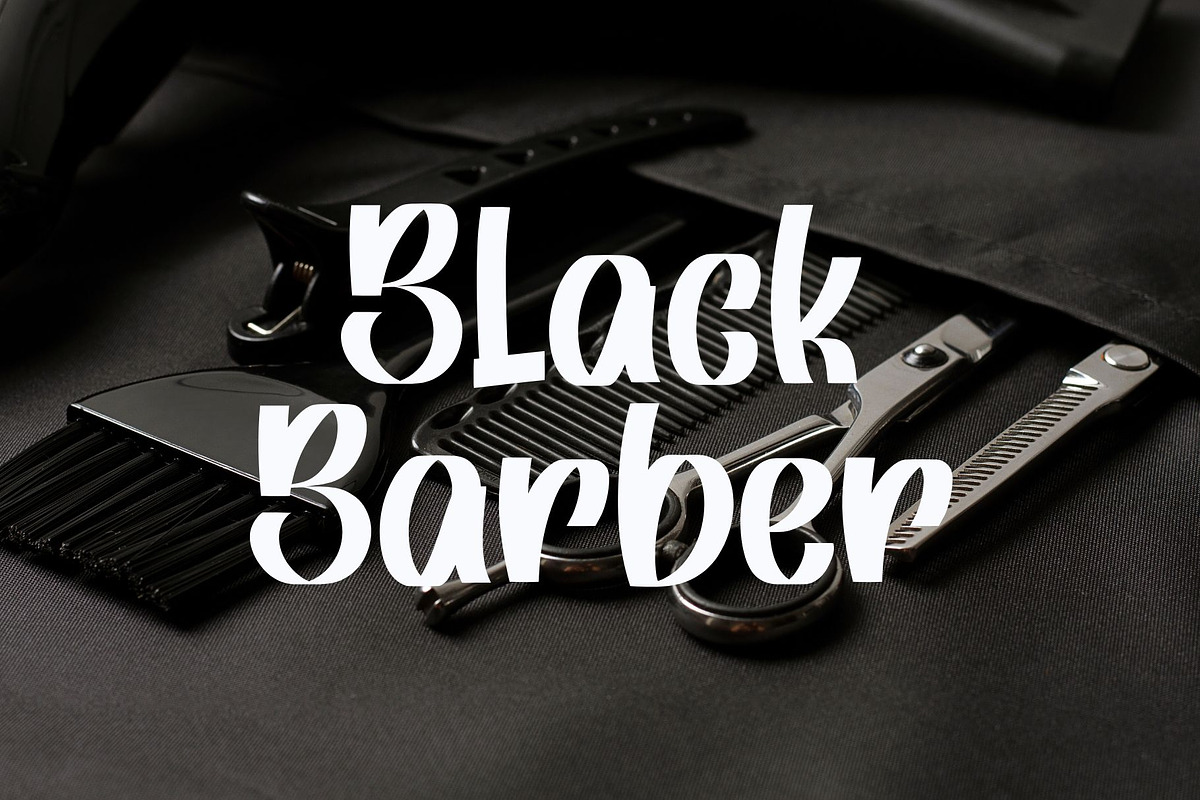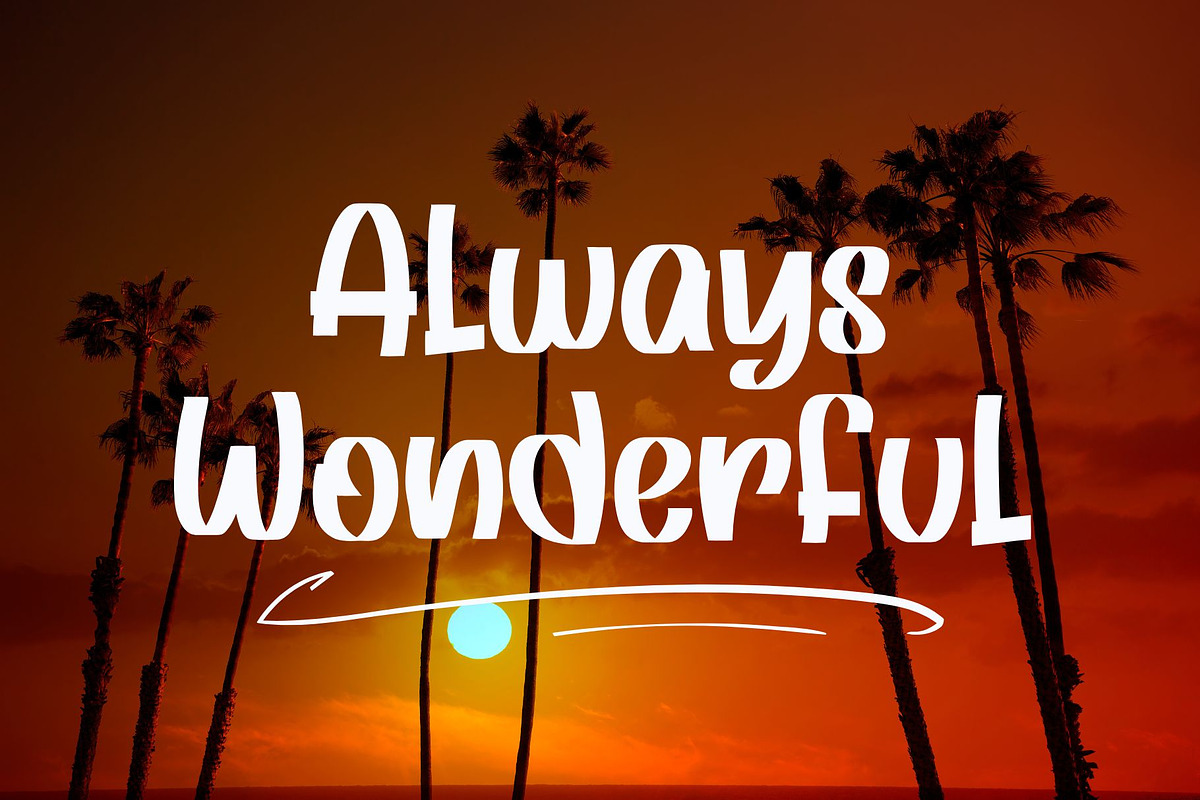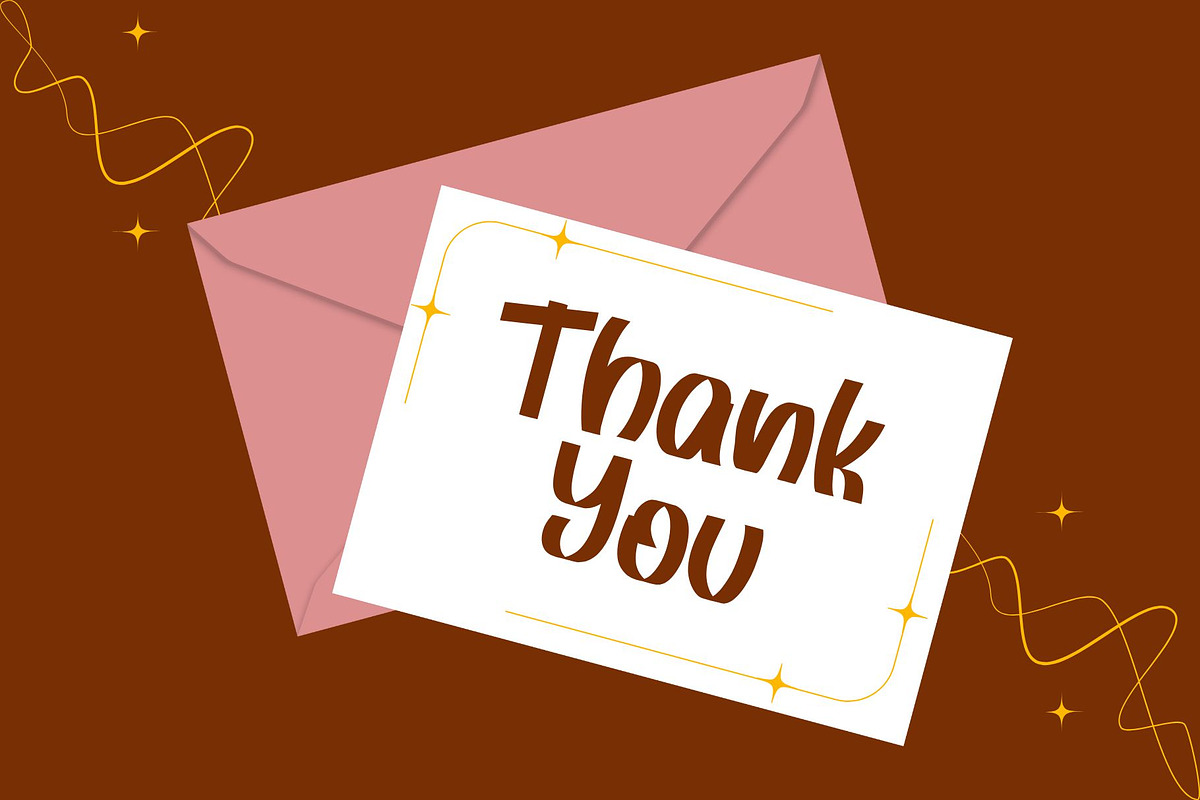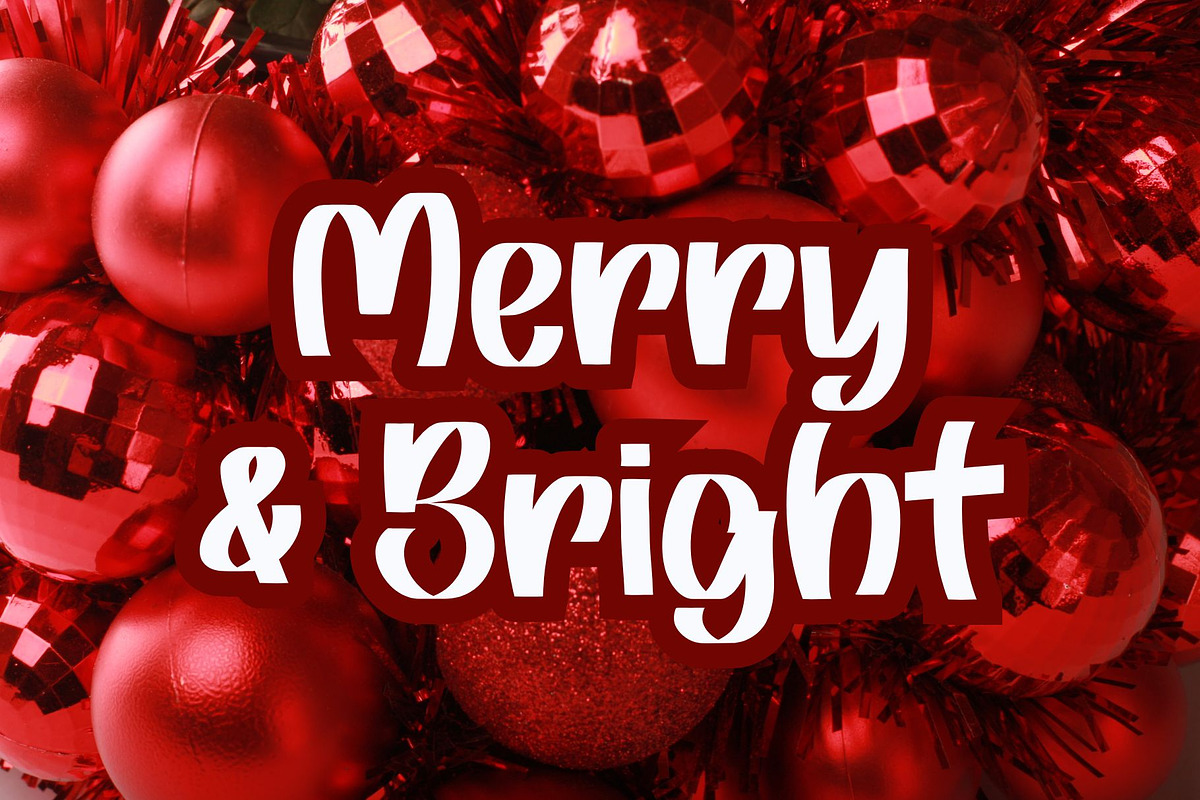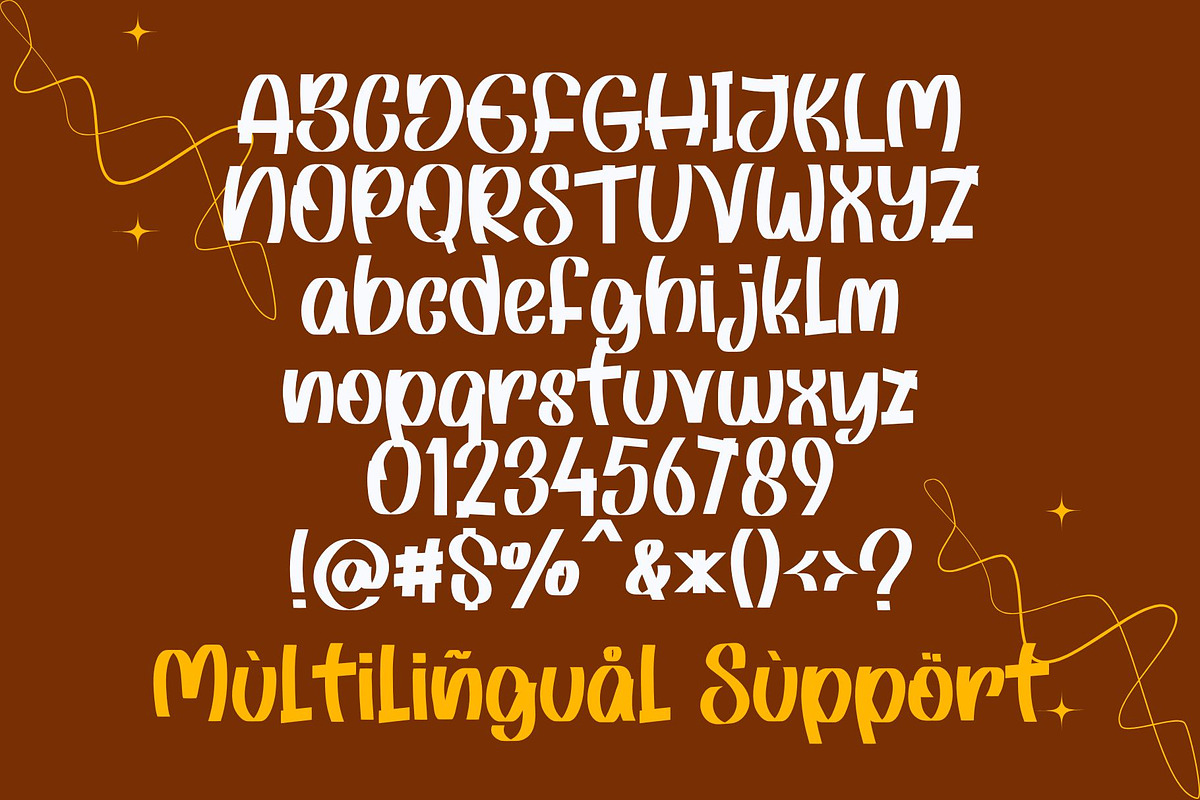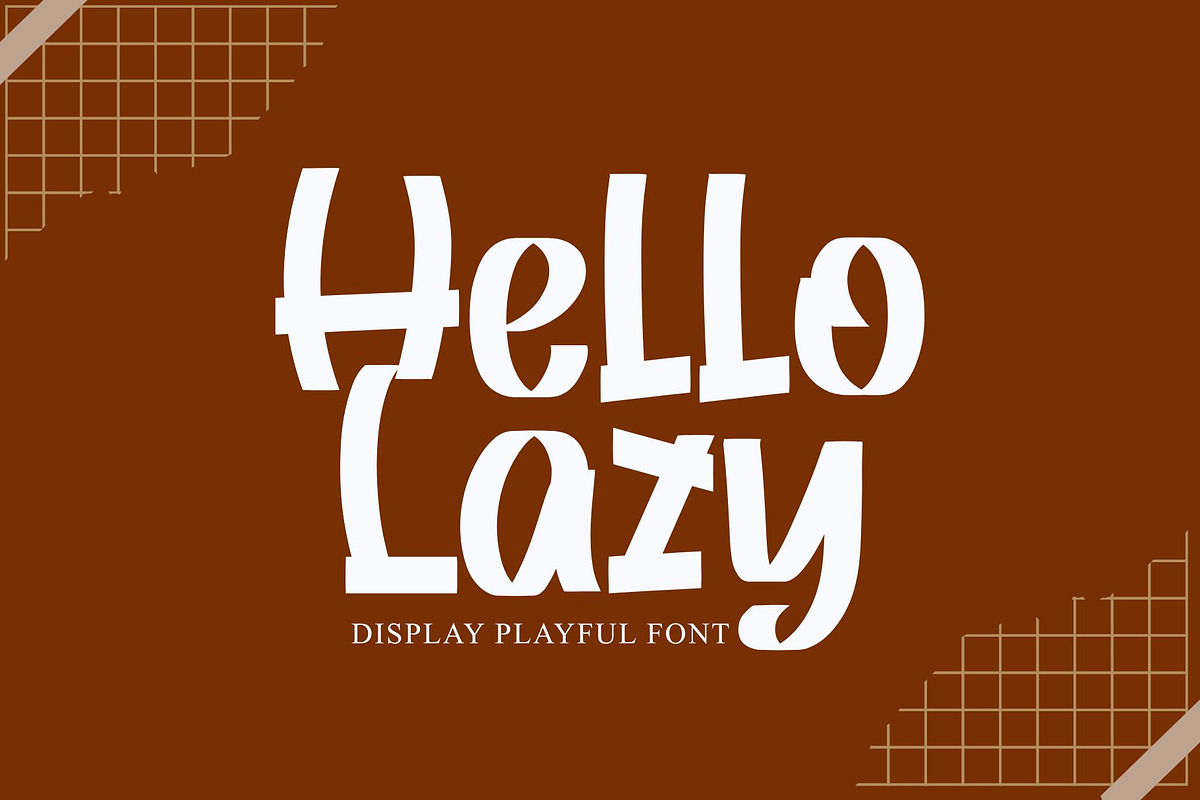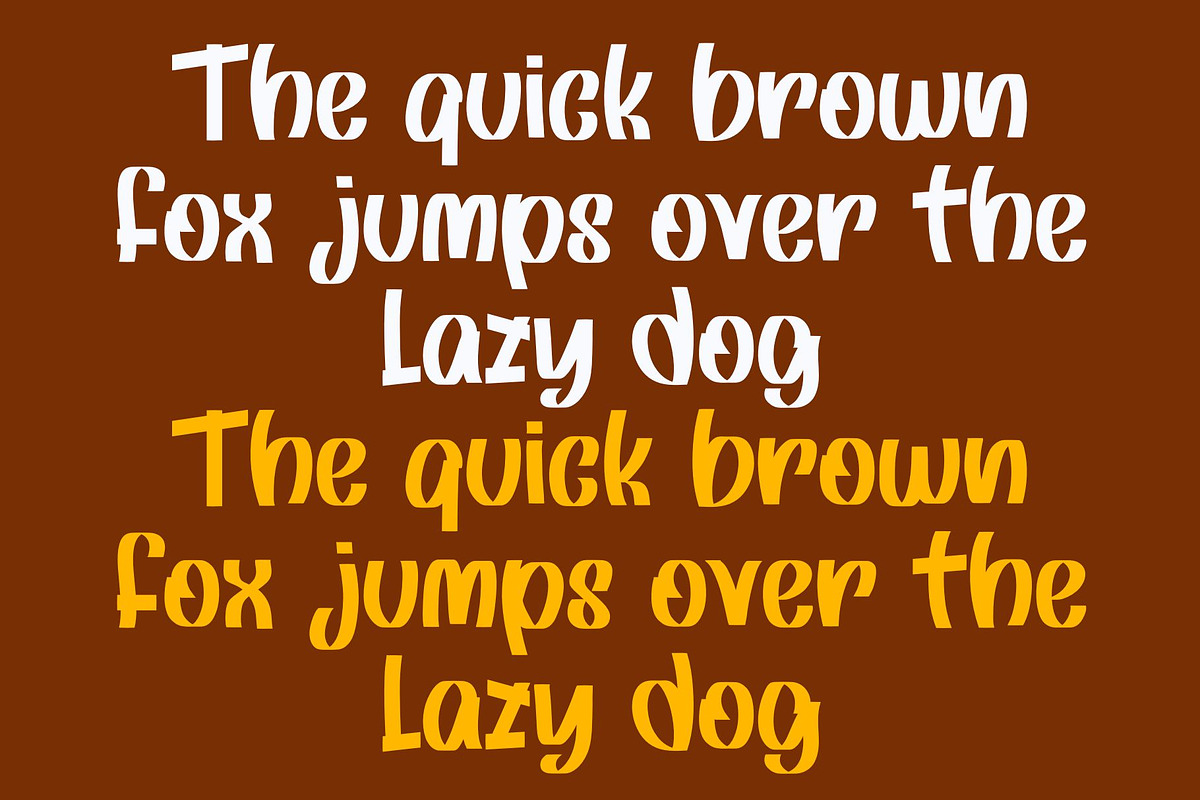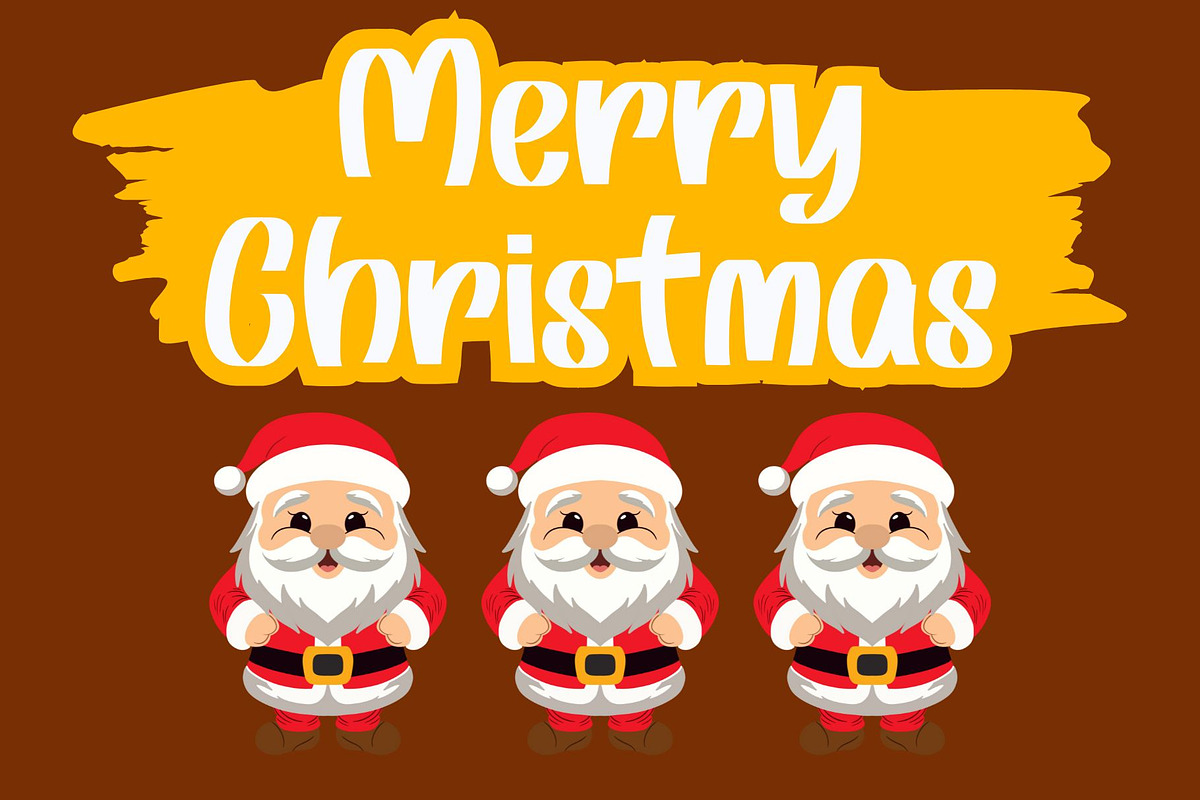
hello Lazy
Hello Lazy is a playful display typeface featuring bold, uneven letterforms with a hand-crafted aesthetic. Its quirky shapes and exaggerated strokes create a fun and casual tone, making it suitable for children’s projects, branding, posters, packaging, and creative social media layouts. Designed to stand out, this font adds an expressive and friendly character to any visual design.
- Support multilingual; ä ö ü Ä Ö Ü ß ¿ ¡
- lowercase and uppercase letters